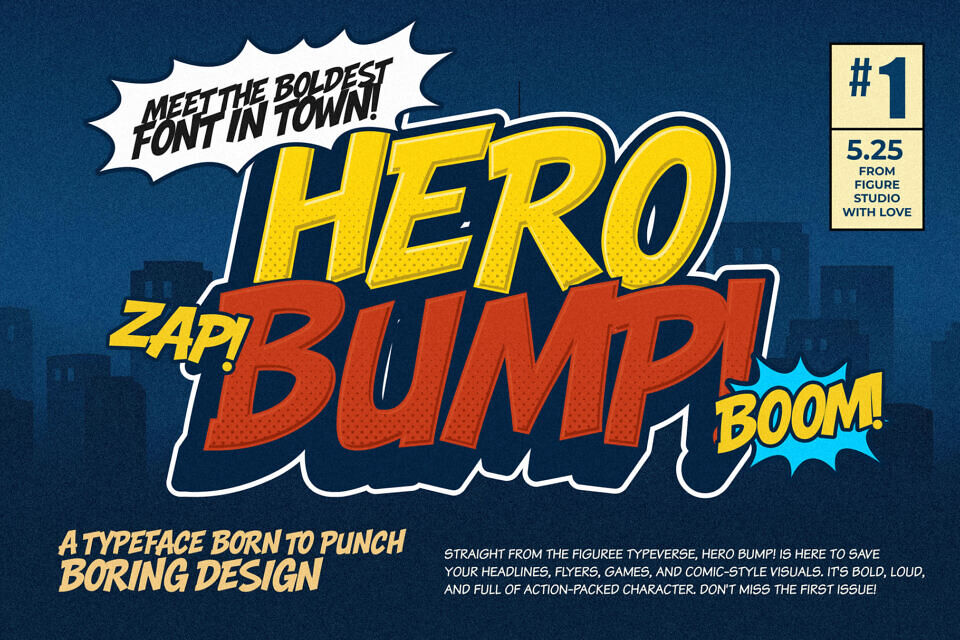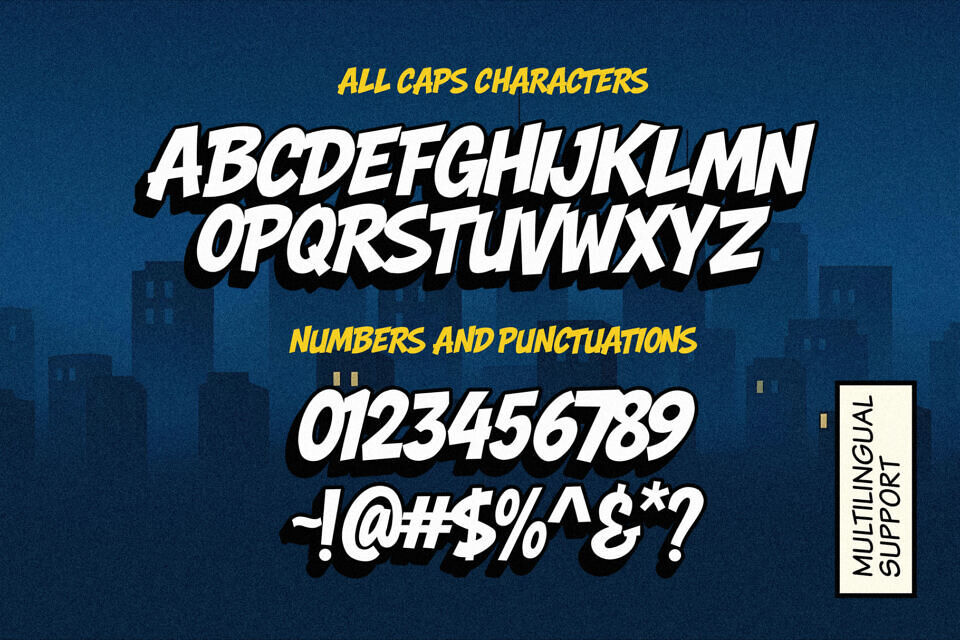
Hero Bump Font
Looking to bring action, energy, and retro comic-book charm into your designs? Meet Hero Bump, the boldest comic display font in town—born to punch boring design right in the face!
Inspired by the golden age of comics and classic superhero aesthetics, Hero Bump is a high-impact, all-caps typeface designed to save your headlines, posters, games, and branding from bland visuals.
Hero Bump is a powerful comic-style display font straight from the Figuree Typeverse. Built with dramatic weight, exaggerated forms, and dynamic letter angles, it’s perfect for creating visual storytelling that leaps off the page. Whether you’re designing a retro flyer, comic book cover, superhero logo, or gaming poster, Hero Bump delivers that unmistakable zap-pow-boom energy.